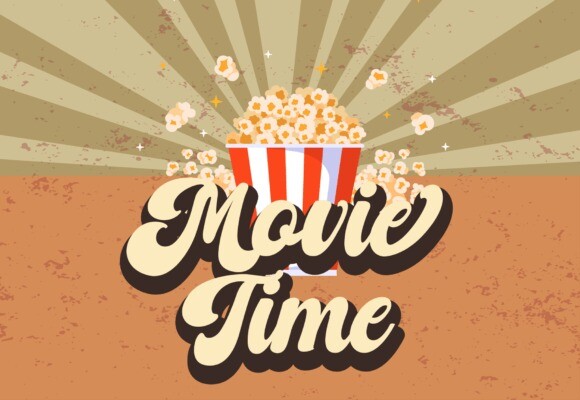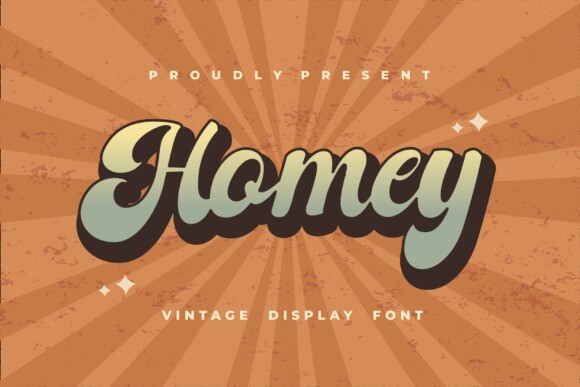
Homey Retro Font
Homey Retro Font, a vintage, groovy display font, is a nostalgic journey into the free-spirited era of the ’70s. With its bold strokes, psychedelic curves, and retro charm, Homey encapsulates the essence of bohemian aesthetics. Perfect for projects seeking a touch of yesteryear’s warmth and a vibrant, laid-back vibe.